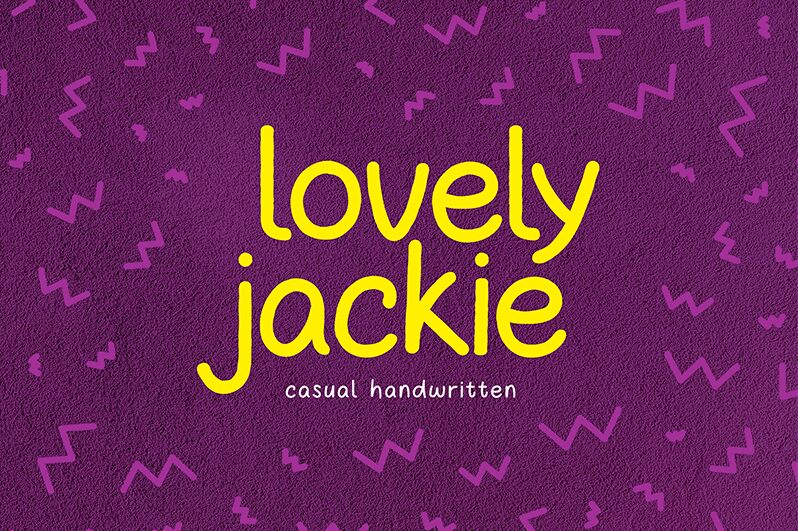
Lovely Jackie
Lovely Jackie, a captivating handwritten font crafted by UI Creative, exudes a delightful charm that instantly captivates the eye. With its playful, organic strokes and an effortless flow, this font radiates warmth and personality, evoking a sense of genuine human expression. The font's distinct character and fluid lines lend an air of whimsical sophistication, making it an alluring choice for a wide range of design projects.
Lovely Jackie's versatility shines through its ability to seamlessly blend into various design contexts. From elegant stationery and invitations to vibrant branding and packaging, this font's adaptability allows designers to infuse a touch of authentic, handcrafted elegance into their work. Its inviting, yet refined aesthetic makes it a compelling option for projects seeking to convey a sense of personal touch and heartfelt appeal.